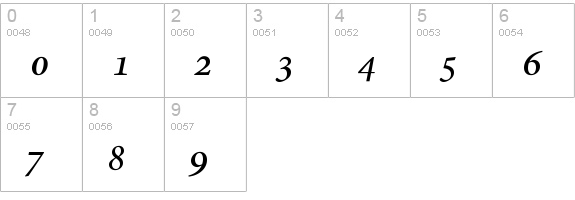
Adobe Hebrew Italic is a distinctive, italic variant in the Adobe typeface family \xE2\x80\x94 well suited to design and typography projects.
The Adobe Hebrew Italic font is a graceful and elegant typeface that adds a touch of sophistication to any design project. With its slanted and flowing characters, this font is perfect for adding a touch of flair to your text. The italic style of this font brings a sense of movement and dynamism, making it ideal for conveying a sense of elegance and refinement. What sets the Adobe Hebrew Italic font apart is that it is not only stylish and versatile, but it is also free to download. You can easily access this beautiful font at FontsMarket.com, where you can download it and use it in your projects without any cost. Whether you are working on a design project, creating branding materials, or designing a website, the Adobe Hebrew Italic font is a versatile and eye-catching choice that will elevate your work to the next level.